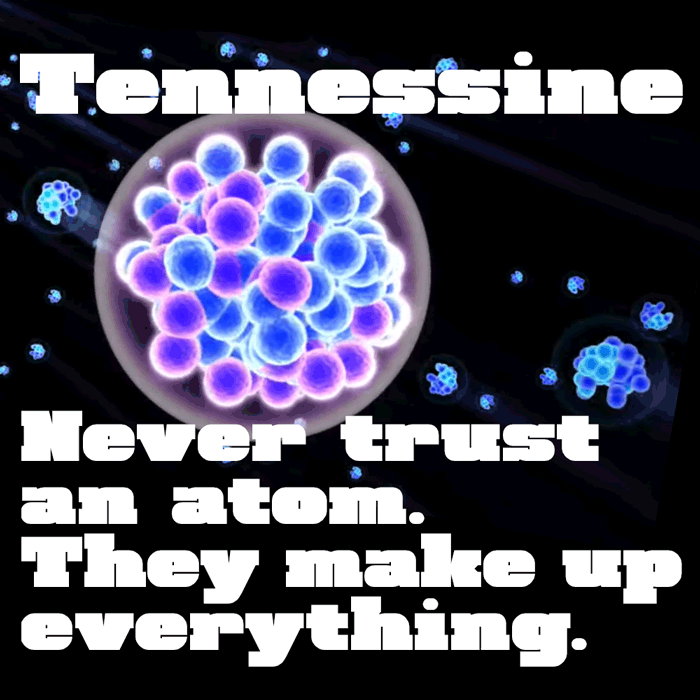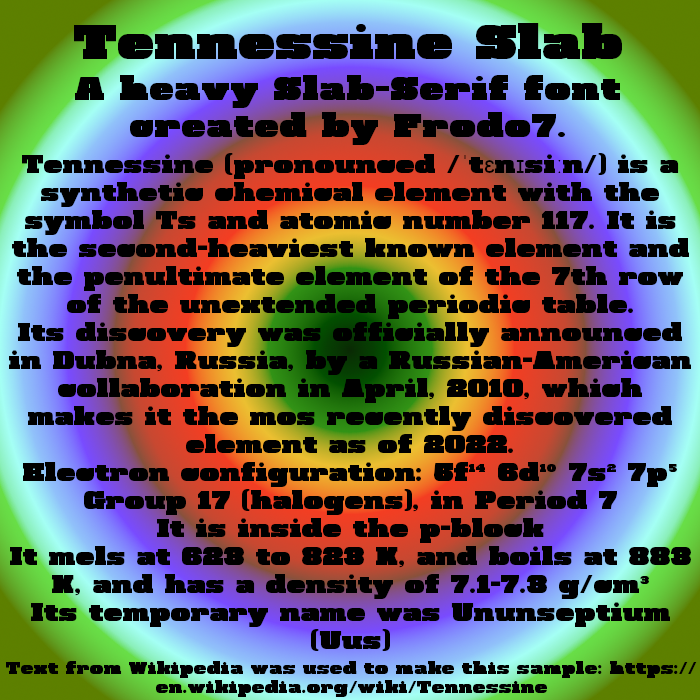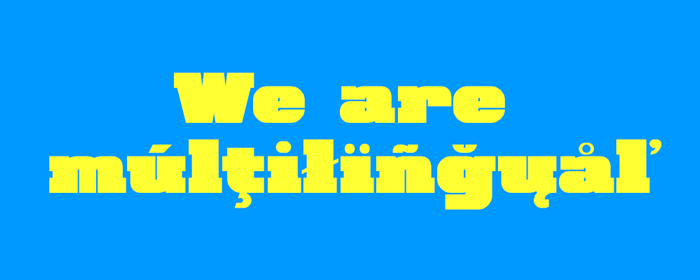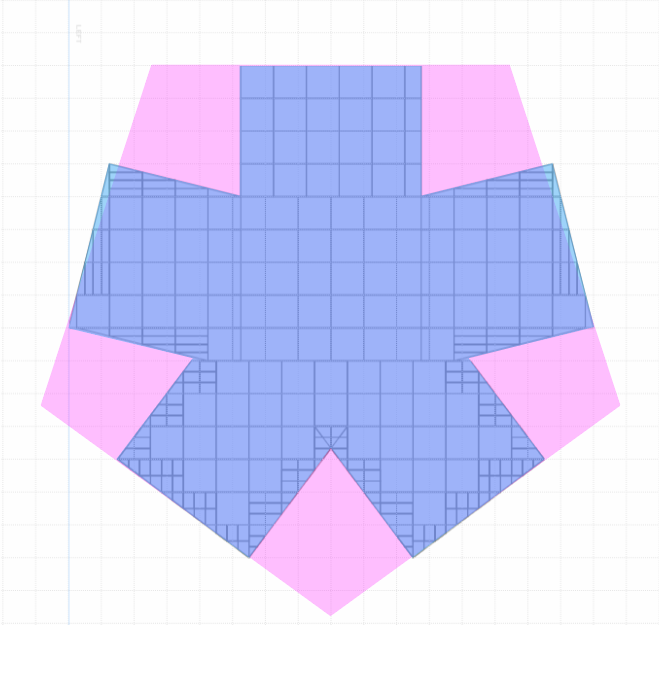
Tennessine: superheavy element of the periodic table named after the US state Tennessee. Symbol: Ts, atomic number: 117, atomic weight: 294. It is a radioactive element artificially produced by fusing berkelium and calcium atoms.
@ tortoiseshell, elmoyenique, and Bryndan W Meyerholt (BWM): Thank you for your comments and generous ratings. This font is designed for headlines and short bits of texts in large sizes. It is not recommended for long passages in small sizes.
It took me a week to complete the extended Latin set. A separate Cyrillic set has been created, but it won't be ready for this competition.
Bam! This is a real heavy piece of work. Here, each character uses the space that was given to him. Each character - a statement.
The superscript and subscript figures are very well placed and emphasize the strength of this font even more. 10/10.
@Beate: Thank you for your kind comment and rating. Yes, you hit the nail on the head with your statement. Someone said about heavy fonts, that it means leaving very little white space. Apart from the sub- and superscript, I made a third set of small numbers sitting on the baseline. Combining these, and the superscript numbers, plus the forward slash in between, one can create any possible fractions. Anglo-Saxons love fractions. Europeans prefer decimals.
It was a good practice and learning opportunity to make all extended Latin characters. Tennessine Slab now supports Basic Latin, Latin-1 Supplement, and Latin Extended-A Unicode blocks. There are a few omissions: ʼn, IJ, and ij, as they can be generated easily from existing characters with better spacing. I'm not sure about the ¶ (pilcrow) symbol. It would be such a monster glyph. Given the heavy nature of this font, designed for headlines mostly, there would be hardly any practical use for it.
Everything about this is phenomenal 10/10
Superb superheavy slab, Maestro! Instant fav.
Doesn't look very legible at small sizes, but still readable
wow! looks great! - 10/10
Beautiful work, very useable and so consistent and complete!
The asterisk (outline view, blue) approximates the angles of a regular pentagon (superimposed, pink) reasonably well.
I replaced the commas with a heavier version. They look a lot better.